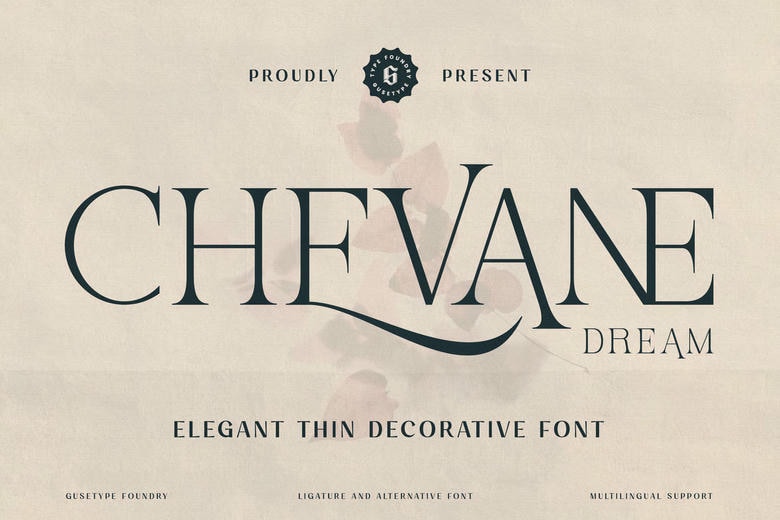
Chevane Dream is a decorative serif typeface that is based on starlight. It is crisp and light which makes it feel elegant and luxurious and is its defining features. Chevane Dream can be applied in numerous works, such as branding and identity, posters, magazines, and logos, album, etc.
Chevane Dream Serif Font